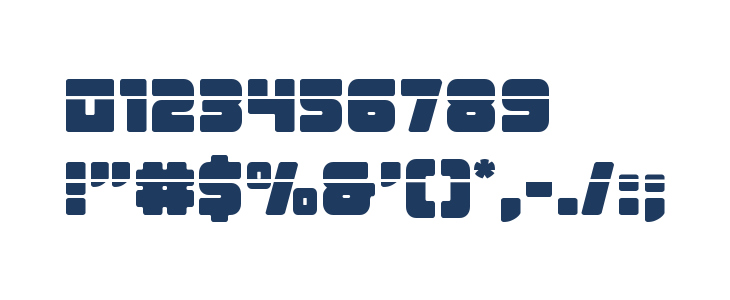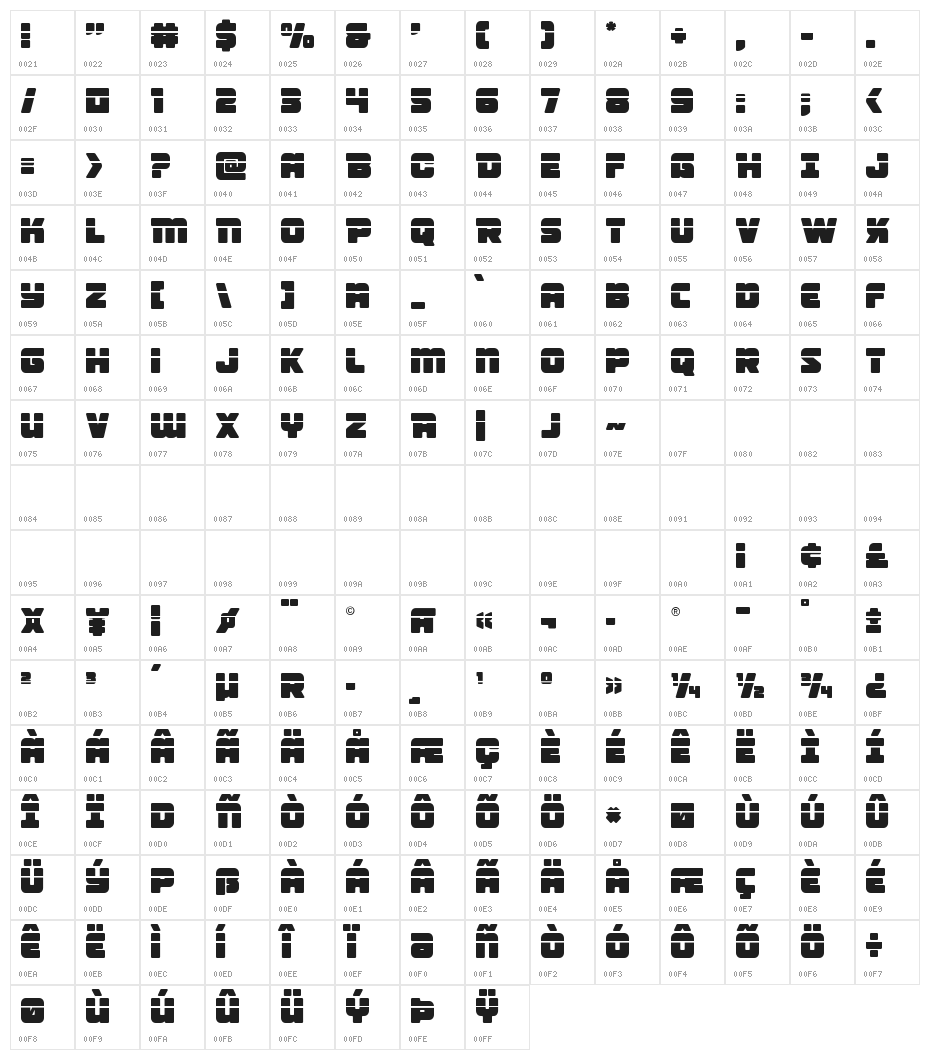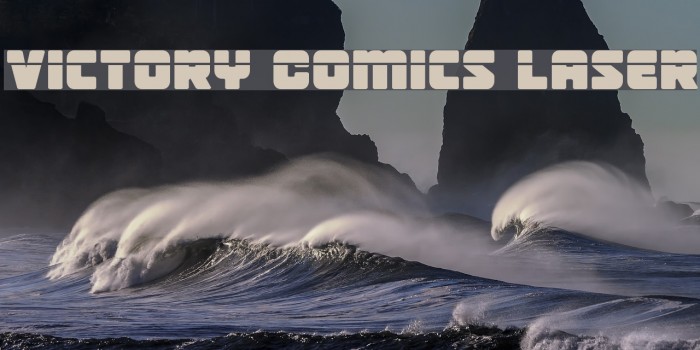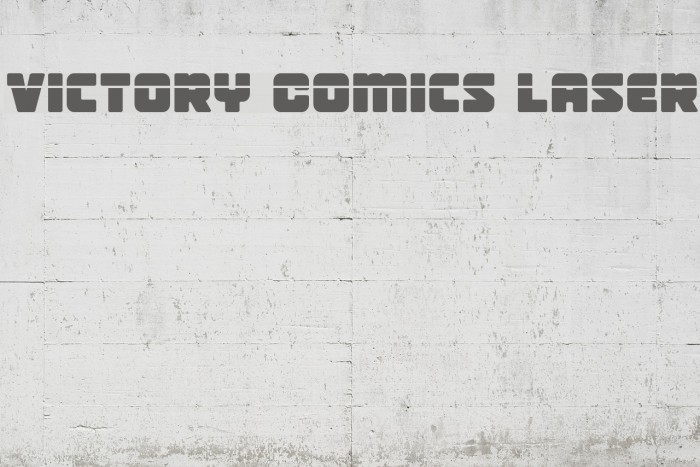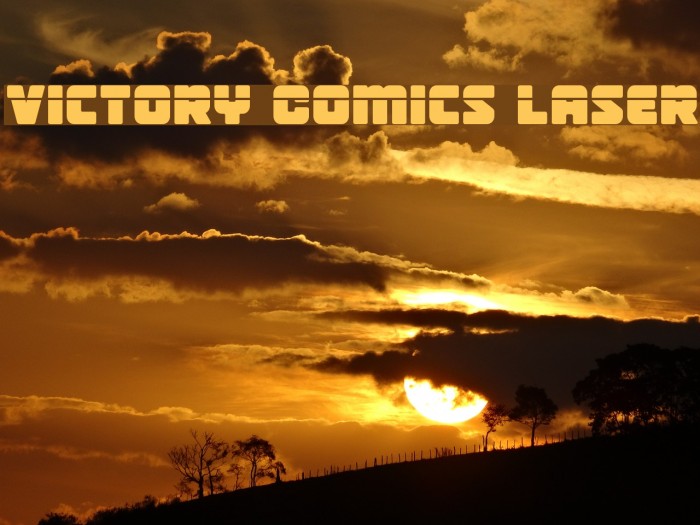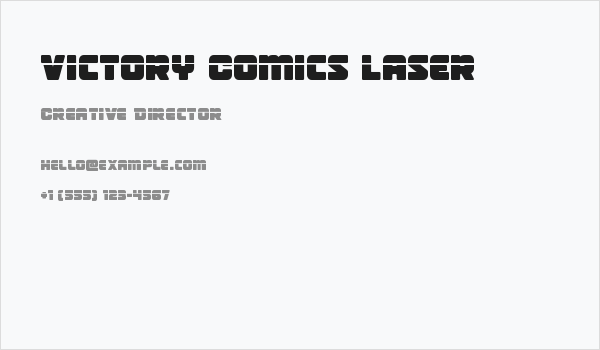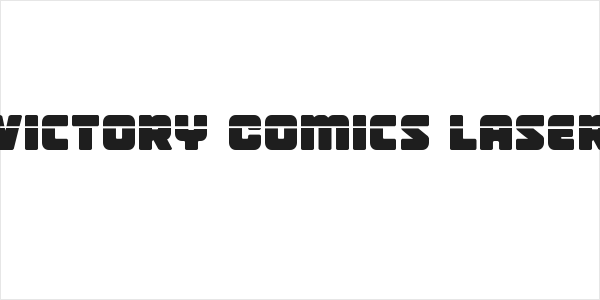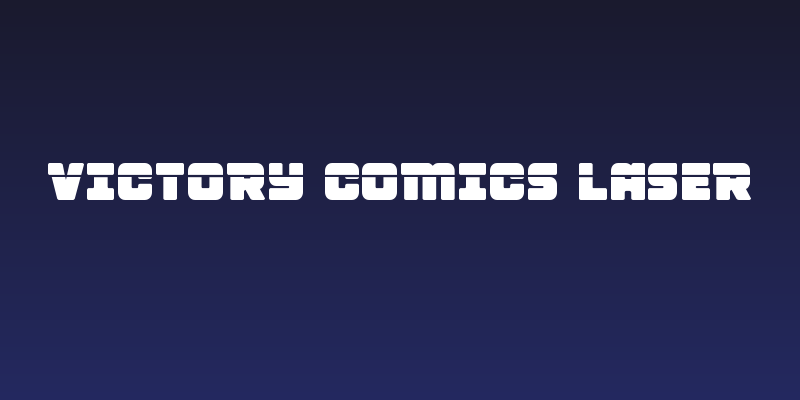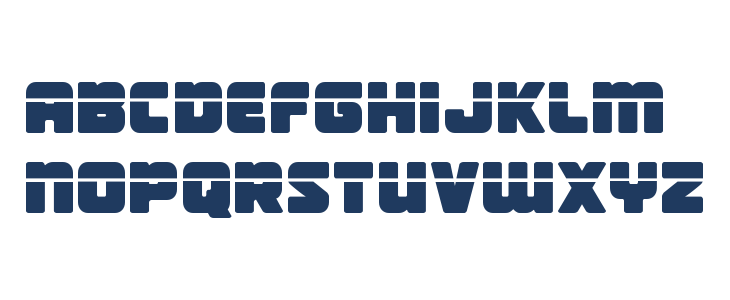
Victory Comics Laser Font
Victory Comics Laser Description
This font features a bold and striking design with a strong geometric structure. The characters are blocky and robust, with a futuristic and industrial feel. The uppercase and lowercase letters maintain a consistent weight, contributing to a cohesive and powerful appearance. The numerals and special characters follow the same bold style, ensuring uniformity across all glyphs. The font's thick strokes and minimal contrast make it highly legible, even at smaller sizes. Its unique style is reminiscent of comic book titles or retro-futuristic themes, making it ideal for projects that require a strong visual impact.
| Overall Style | Futuristic, Industrial |
| Proposed Projects | Ideal for comic book titles, retro-futuristic designs, posters, and branding that requires a strong, impactful look. |